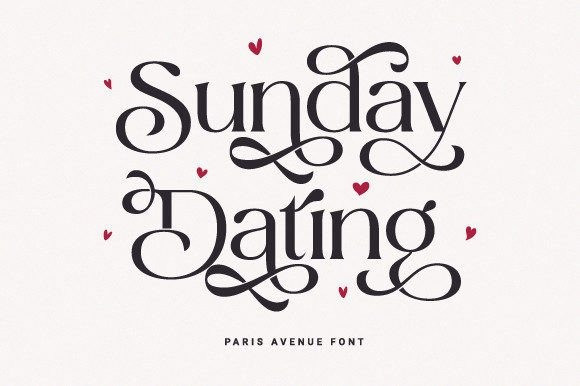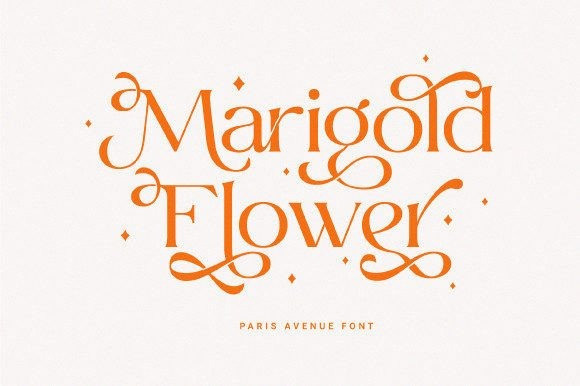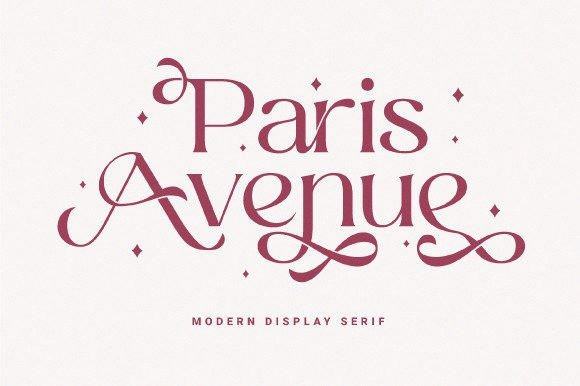
Paris Avenue Font
Paris Avenue – Modern Display Serif. A modern display serif font with a wide variety of alternative characters to expand your design exploration. Great to apply to branding designs, wedding invitations, headlines, logos and more.
Features: Uppercase, Lowercase, Numeral, Punctuation, Multilingual, Alternates & Ligatures.